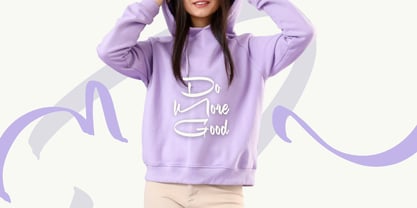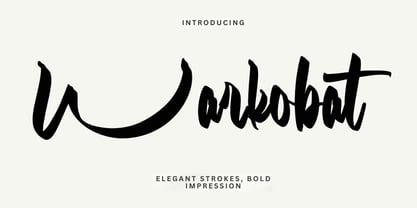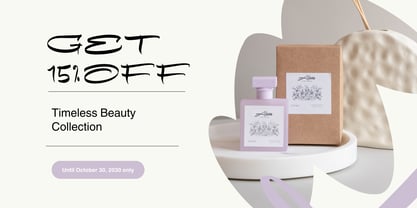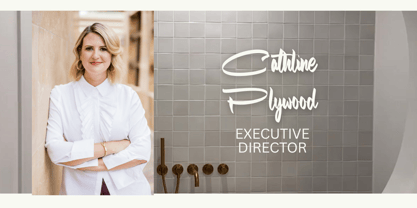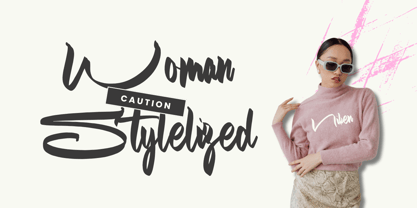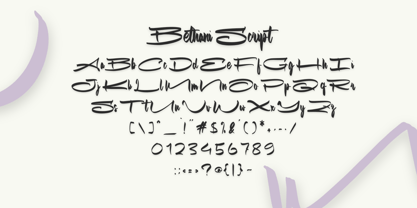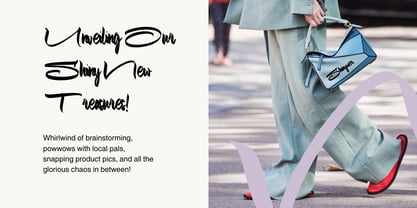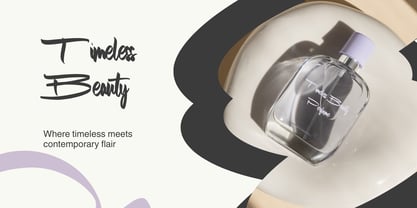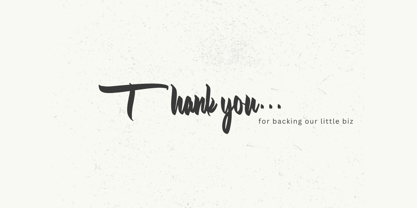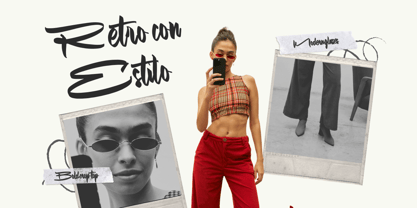
Warkobat
by Gatype
The Warkobat Font Family was designed by khaidir and published by Gatype. Warkobat contains 1 styles. More about this family
Say hello to Warkobat – a beautifully stylish and effortlessly classy script font that adds charm to any design. Whether you're creating logos, magazine spreads, social media posts, or elegant branding, Warkobat brings a touch of sophistication and personality.
With its carefully crafted uppercase and lowercase letters, along with numbers, punctuation, and multilingual support, Warkobat is ready to elevate your creative work across various platforms.
Designers: khaidir
Foundry: Gatype